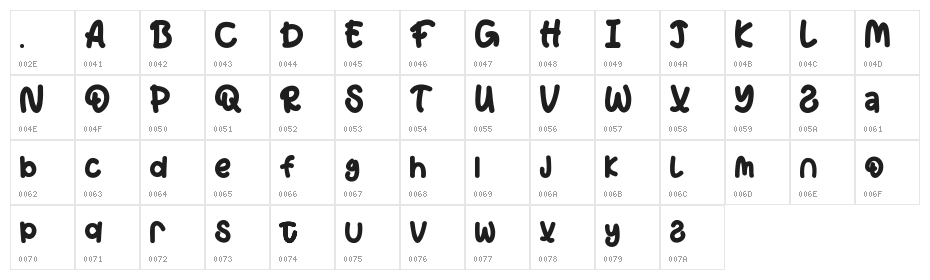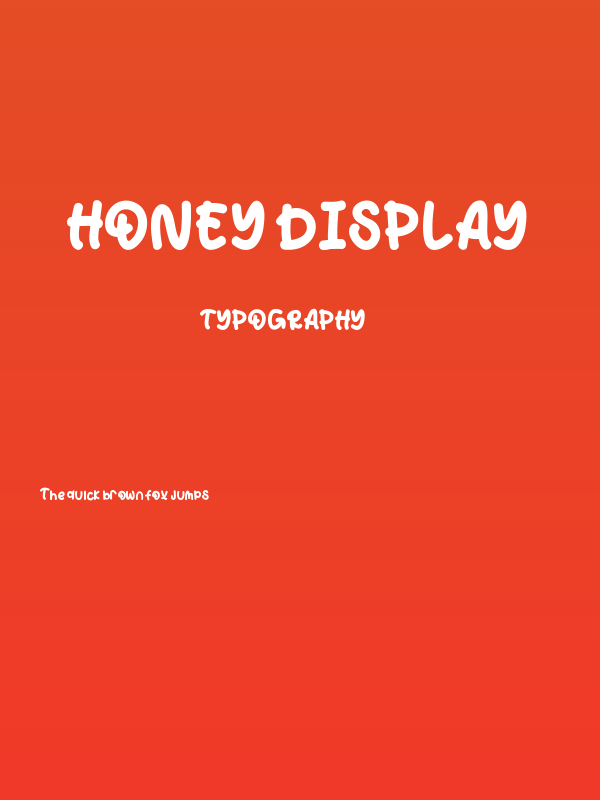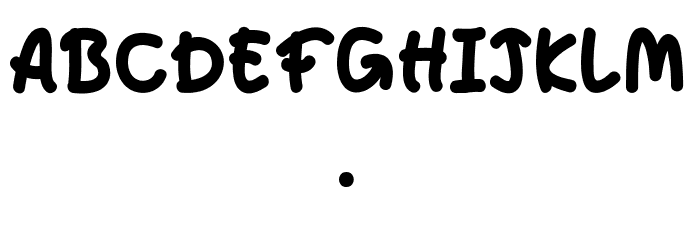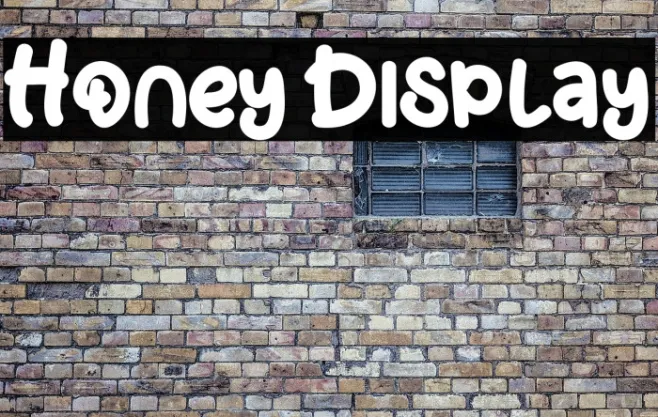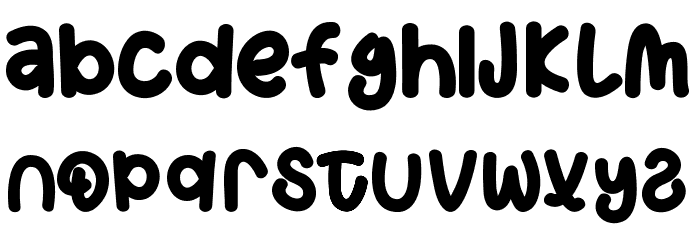
Honey Display Font
Honey Display Description
This playful and bold font features rounded, bubbly characters that exude a sense of fun and whimsy. The letters are thick and have a consistent stroke width, giving them a strong presence on the page. The curves are smooth and exaggerated, creating a friendly and approachable aesthetic. The font maintains a uniform height across both uppercase and lowercase letters, with slight variations in character width that add to its charm. The overall style is casual and informal, making it ideal for projects that require a touch of personality and warmth.
| Overall Style | Playful, Casual |
| Proposed Projects | Perfect for children's books, playful branding, party invitations, and casual social media graphics. |